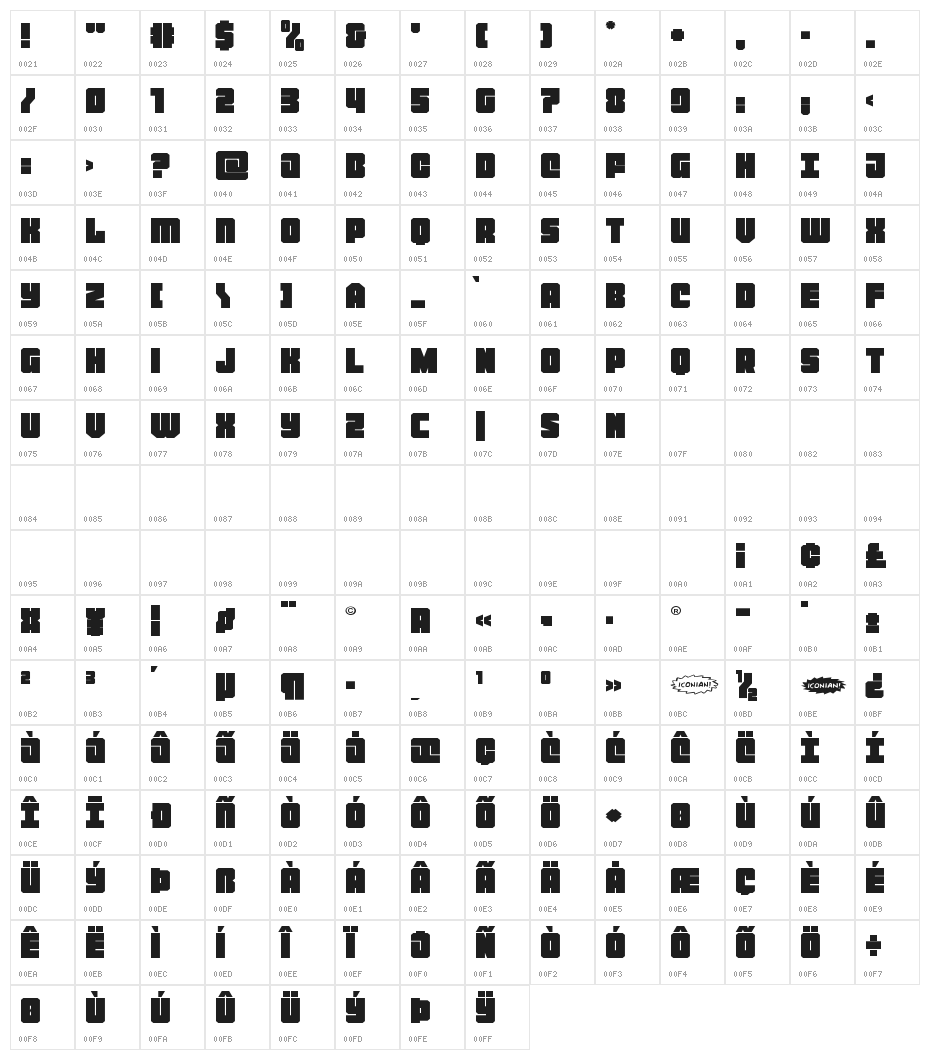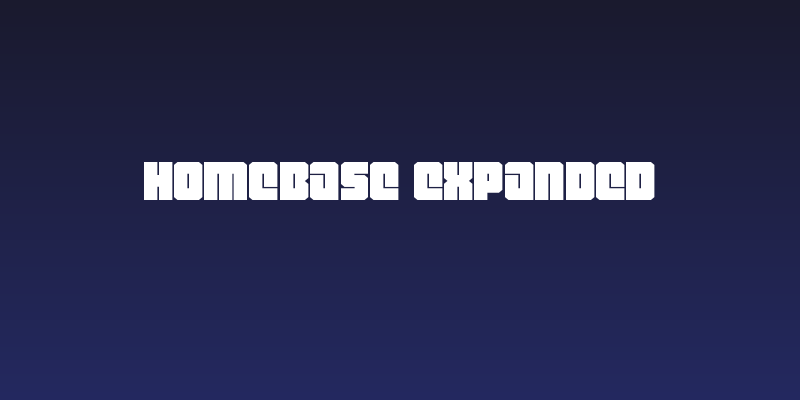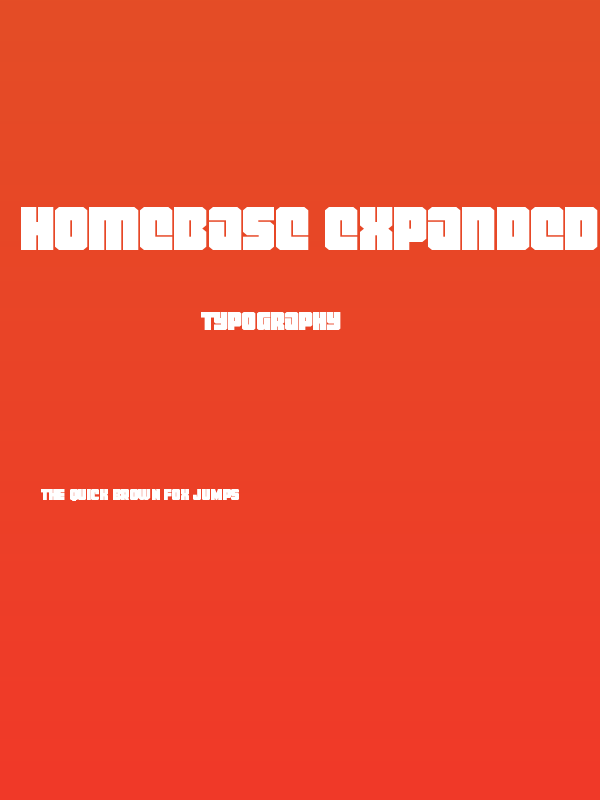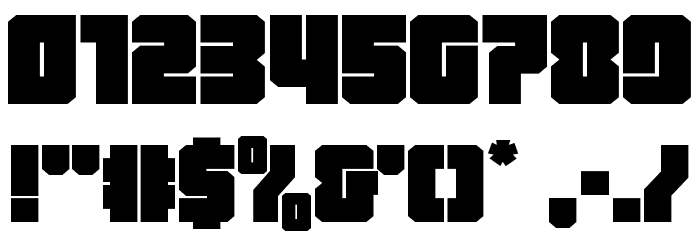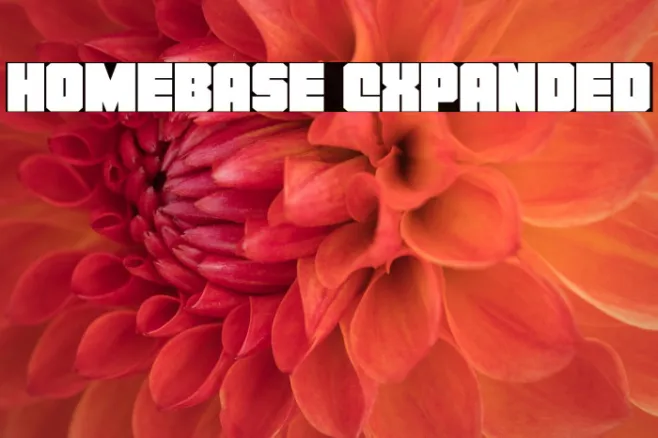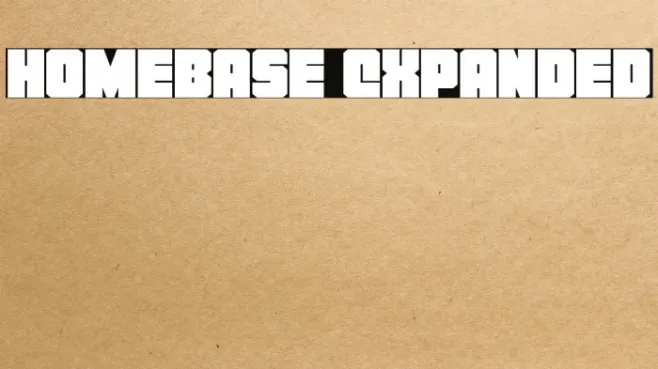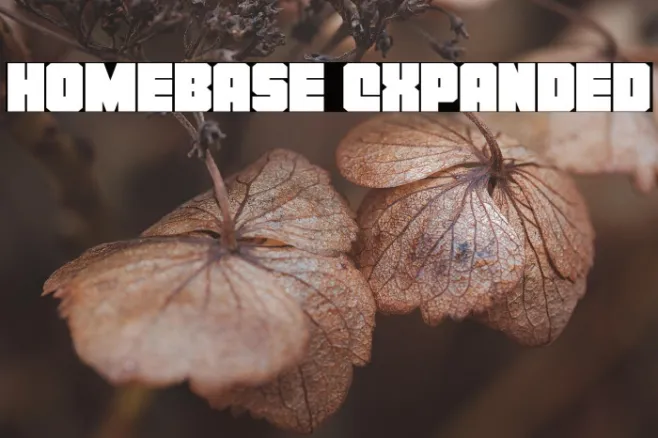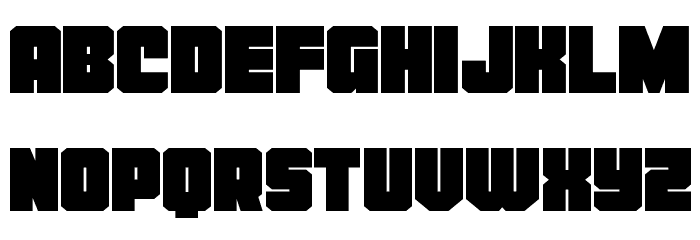
Homebase Expanded Font
Homebase Expanded Description
This font features a bold and blocky design with a strong geometric structure. The characters are uniformly wide, giving it an expanded appearance. The style is reminiscent of digital or futuristic themes, with each letter and number having a consistent height and width, creating a cohesive and impactful visual presence. The sharp angles and straight lines contribute to its modern and assertive look, making it ideal for attention-grabbing headlines or logos. The font's unique style is further emphasized by its uniform stroke weight, which adds to its boldness and clarity.